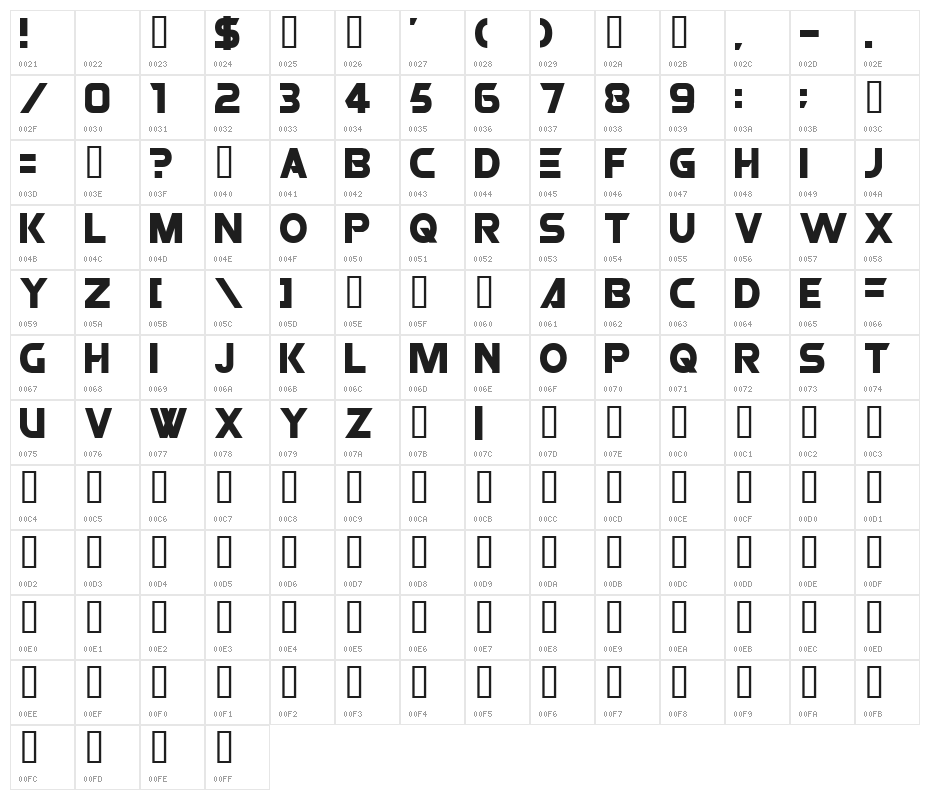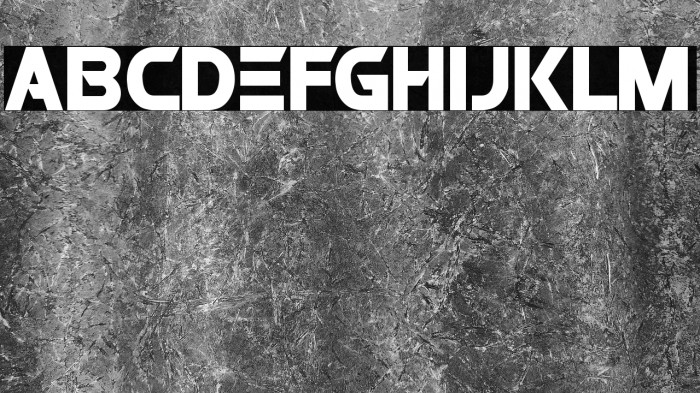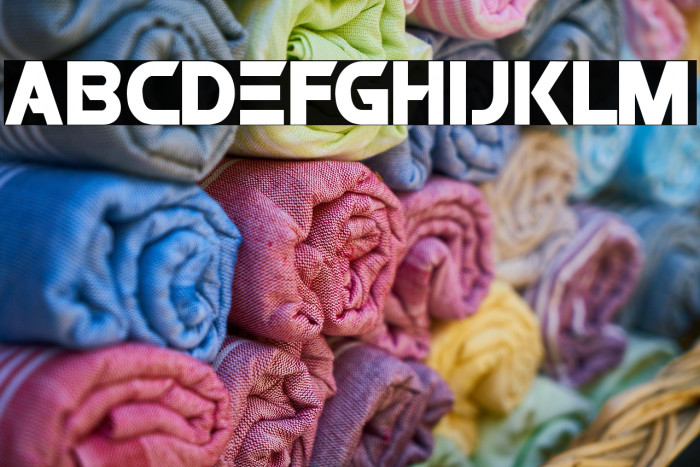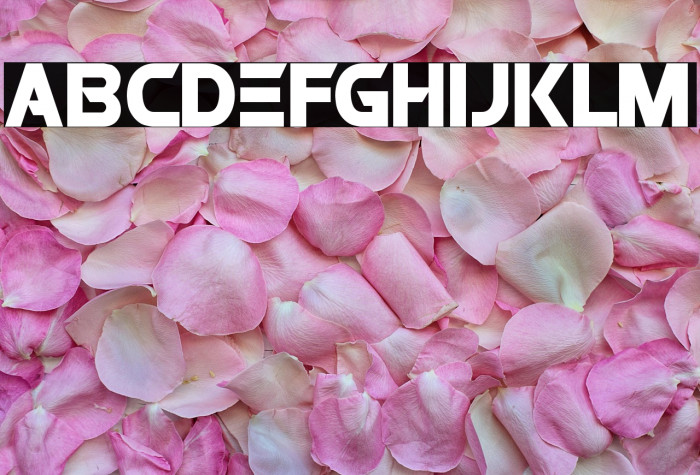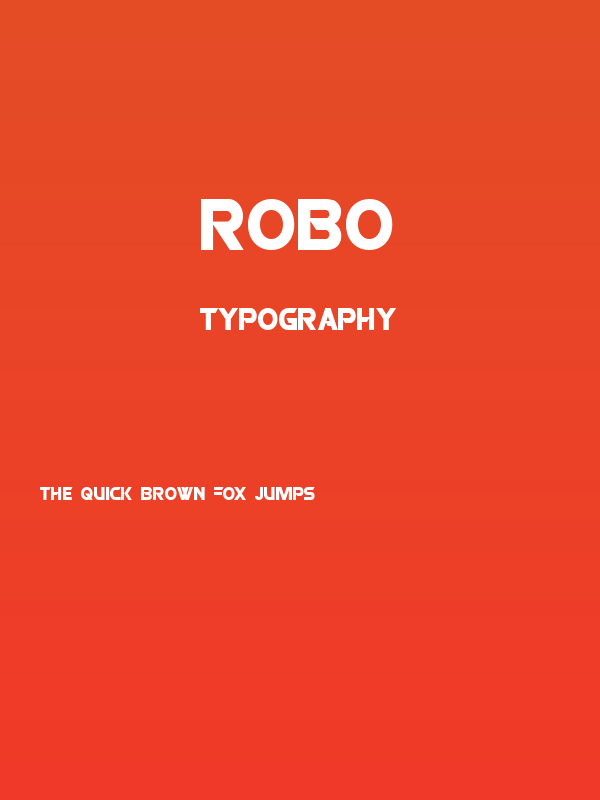
ROBO Font
ROBO Description
This font exhibits a bold and futuristic design, characterized by its geometric shapes and strong lines. The uppercase letters are uniform in height, with a distinct angular style that gives a sense of modernity and technological advancement. The lowercase letters maintain the same boldness, ensuring consistency across the typeface. Numbers are equally robust, with a block-like appearance that enhances readability. Special characters are designed to match the overall aesthetic, featuring sharp angles and clean cuts. The font's design is ideal for projects that require a modern and impactful look, such as technology branding, sci-fi themes, or digital interfaces.
| Proposed Projects | Ideal for technology branding, sci-fi themes, digital interfaces, and modern advertising. |